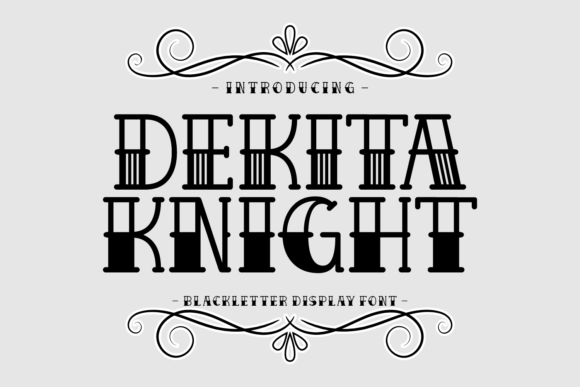
Introducing Dekita Knight Font, the ultimate choice for those seeking the best fonts for display ads! Crafted by Creative Fabrica Fonts, this unique and remarkable blackletter font is an absolute game-changer. Elevate your typography designs and make them truly stand out with this captivating font.
Dekita Knight is here to revolutionize your creative projects. With its bold and striking appearance, this font will leave a lasting impression on your audience. Whether you're designing headers, titles, posters, t-shirts, banners, or cards, Dekita Knight has got you covered.
Why settle for ordinary when you can have extraordinary? This font exudes a sense of power and elegance, making it perfect for brands that want to make a bold statement. Its intricate details and meticulous craftsmanship will captivate your audience's attention, leaving them in awe.
Unleash your creativity with Dekita Knight. Its versatility knows no bounds, allowing you to experiment and create captivating designs that truly reflect your vision. Stand out from the crowd and leave a lasting impact with this font that screams sophistication and style.